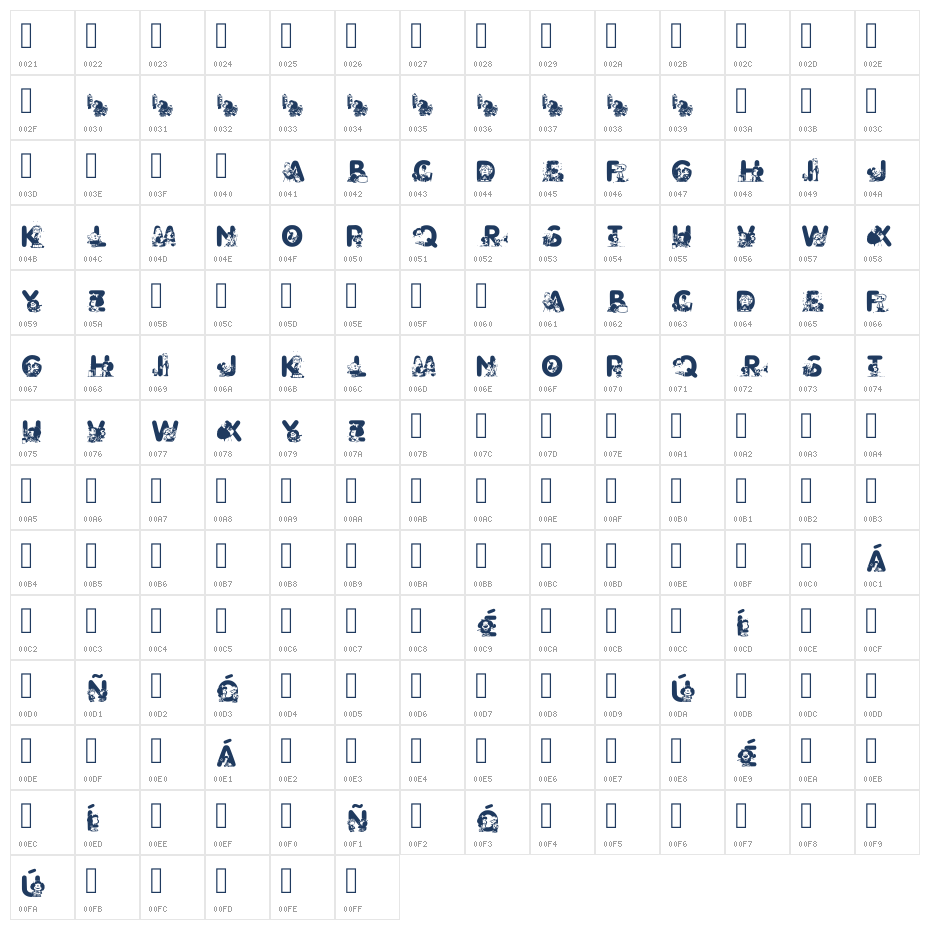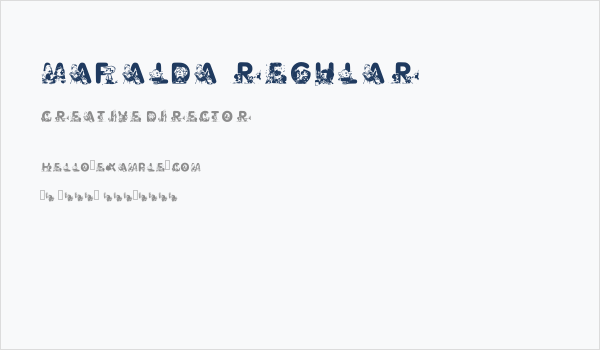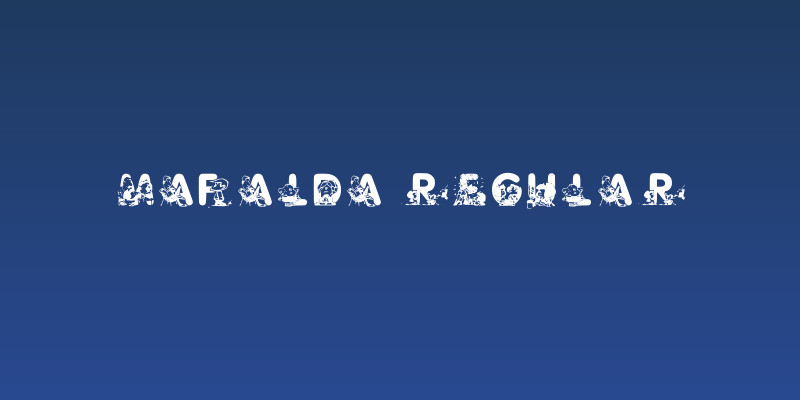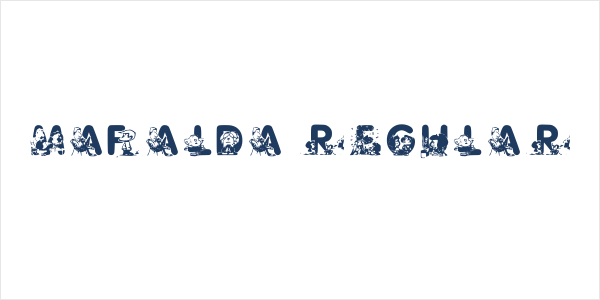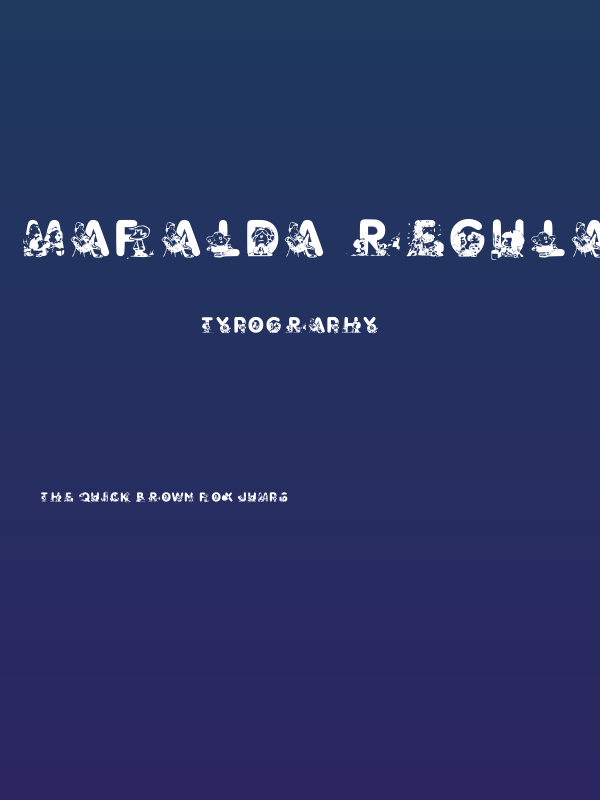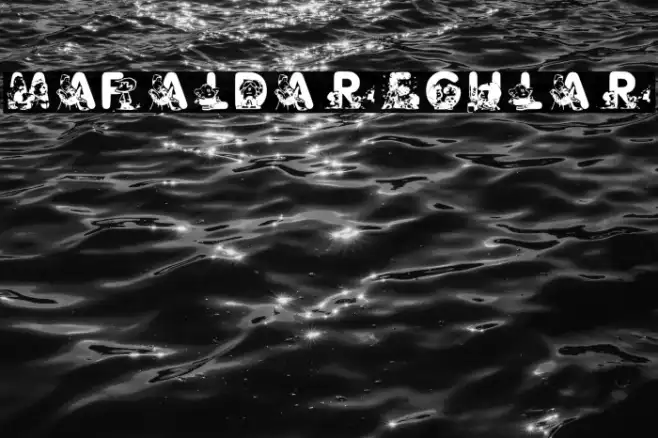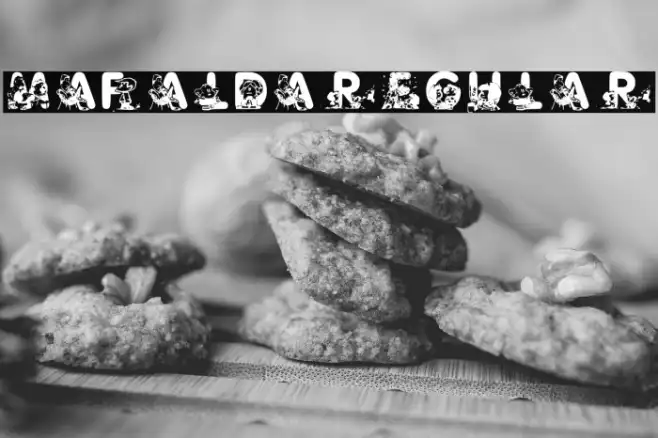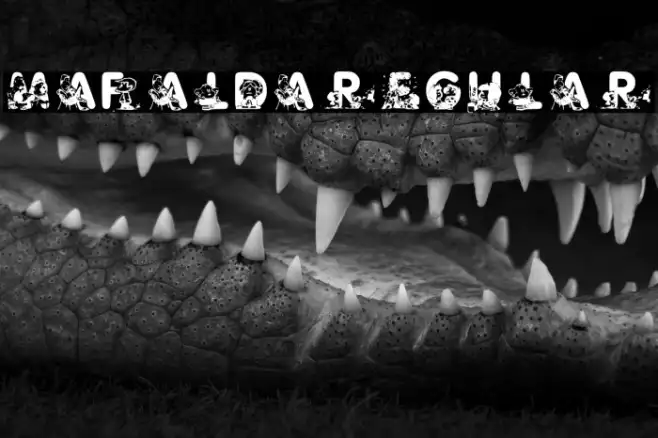
Mafalda Regular Font
Mafalda Regular Description
Decorative, playful font with a distressed, grunge style featuring cartoon characters integrated into the letterforms.
| Overall Style | Playful, Grunge, Cartoon-inspired |
| Use Case | Headlines, Posters, Children's media, Logos |